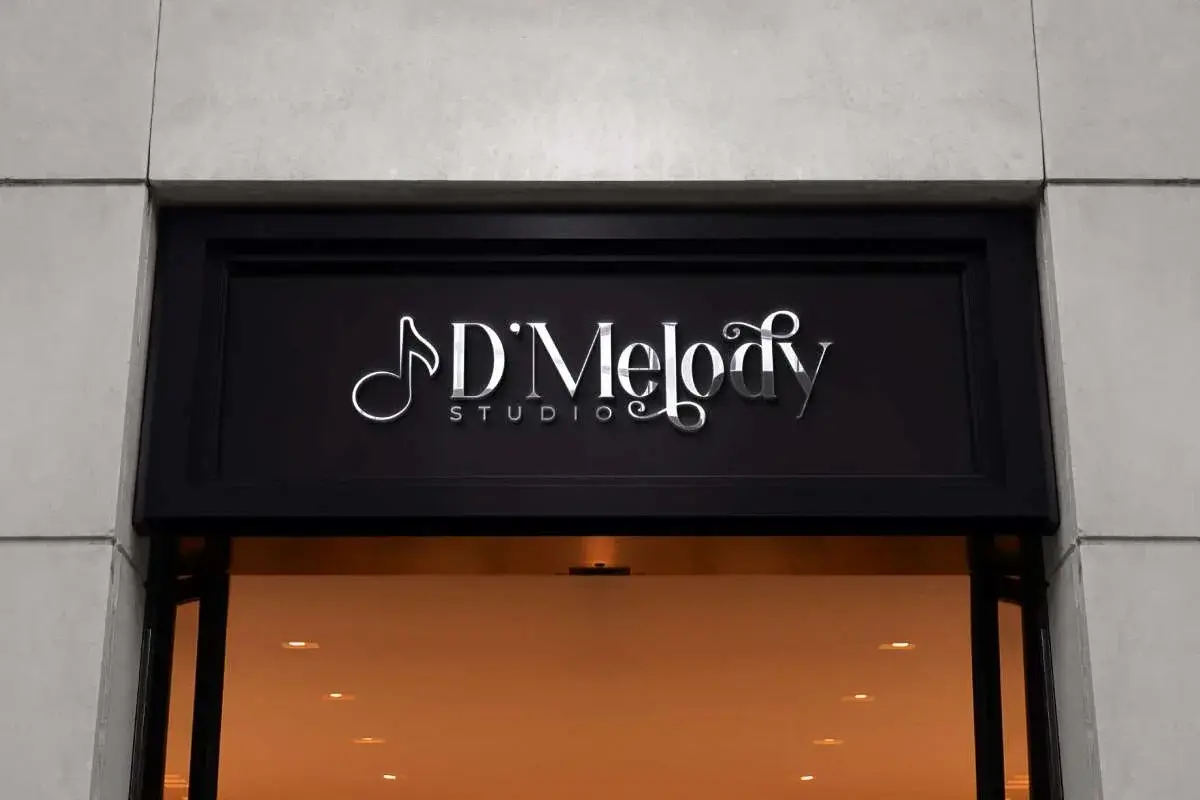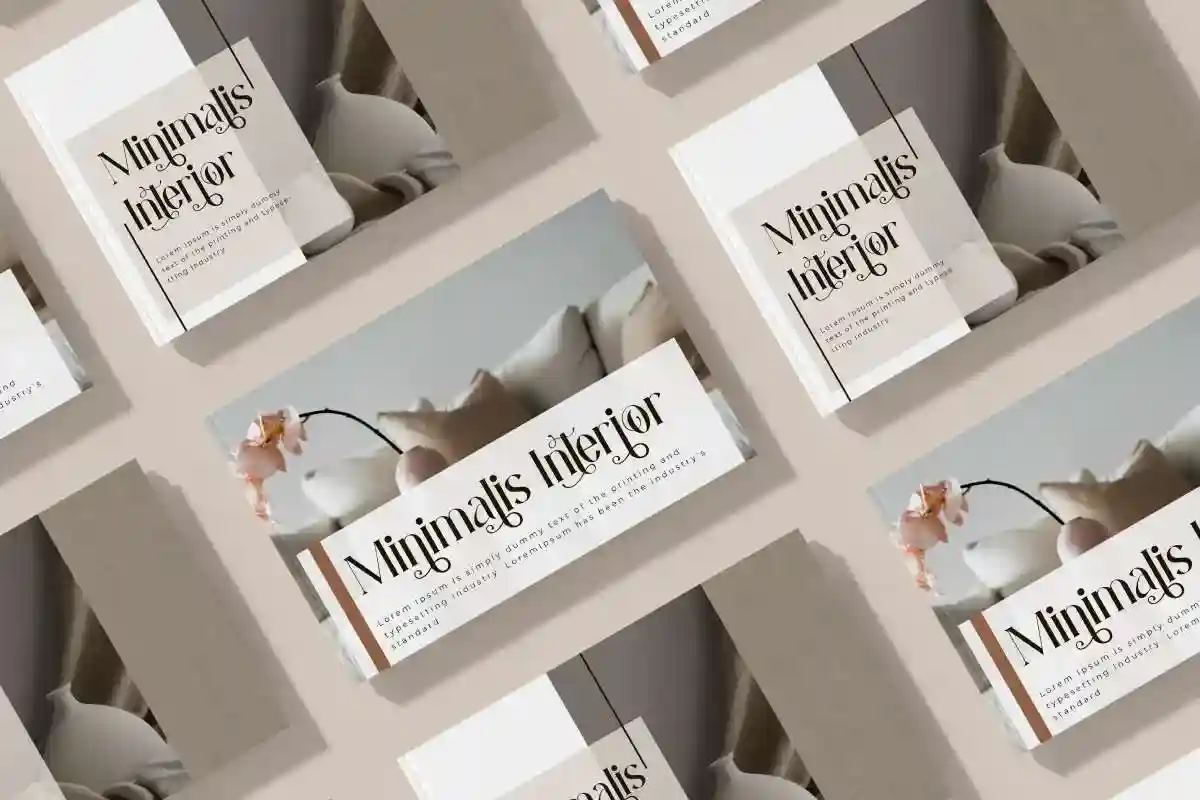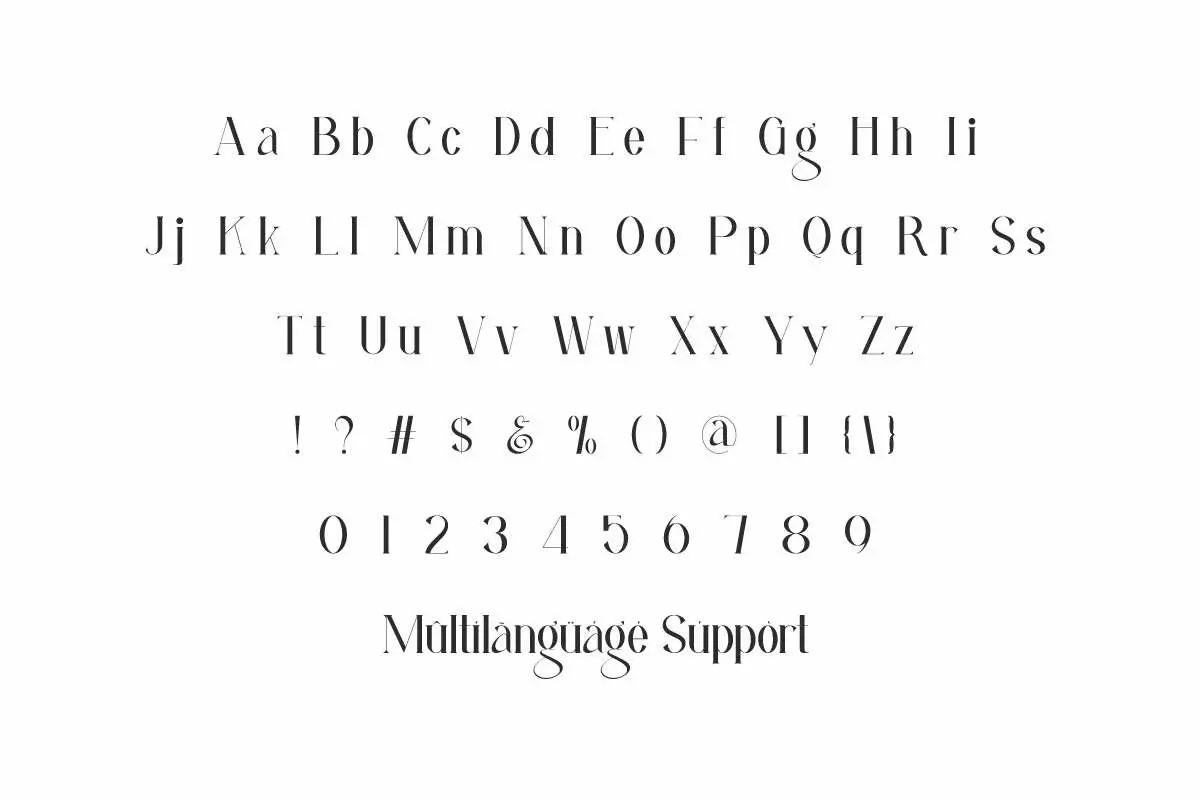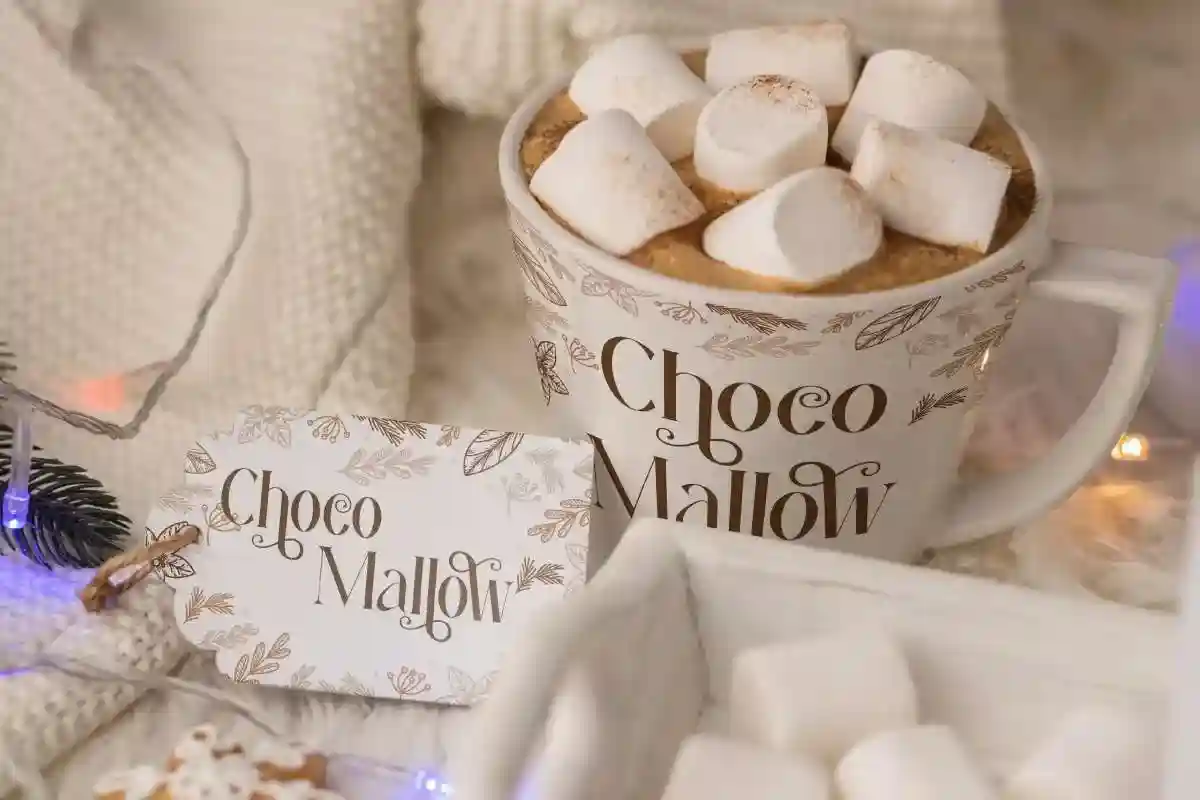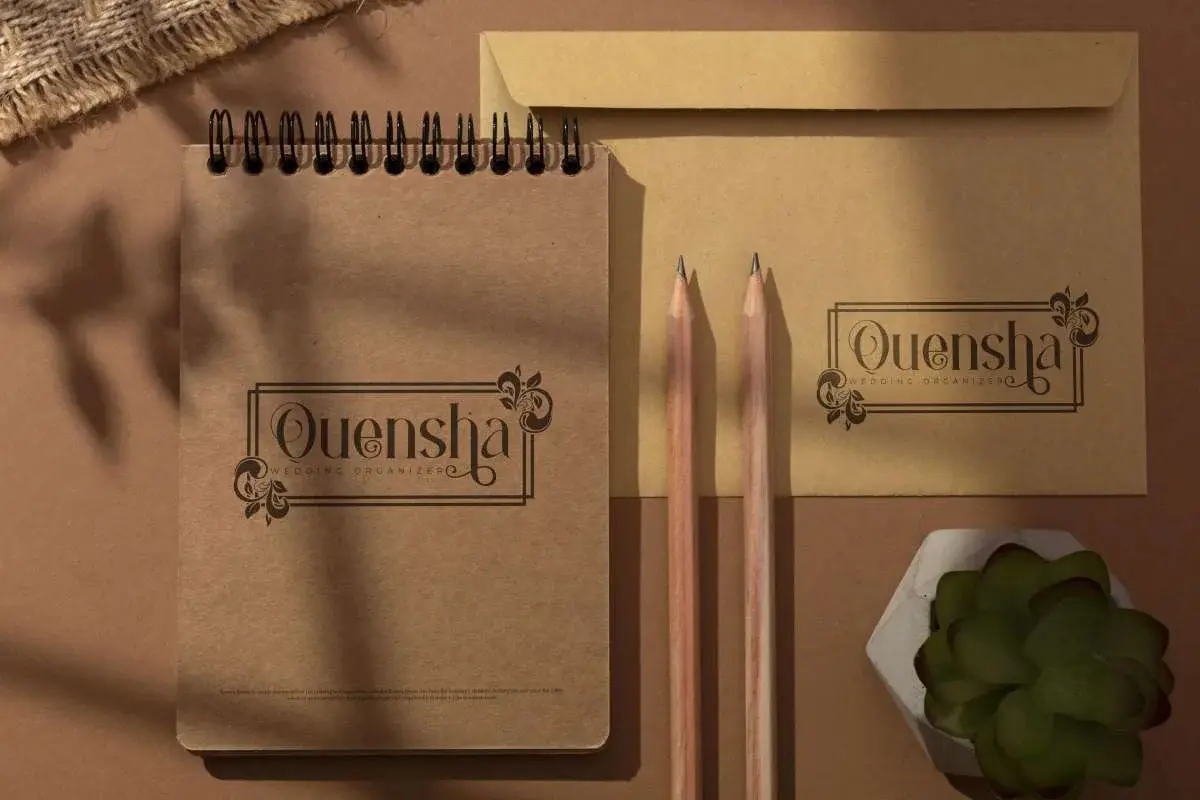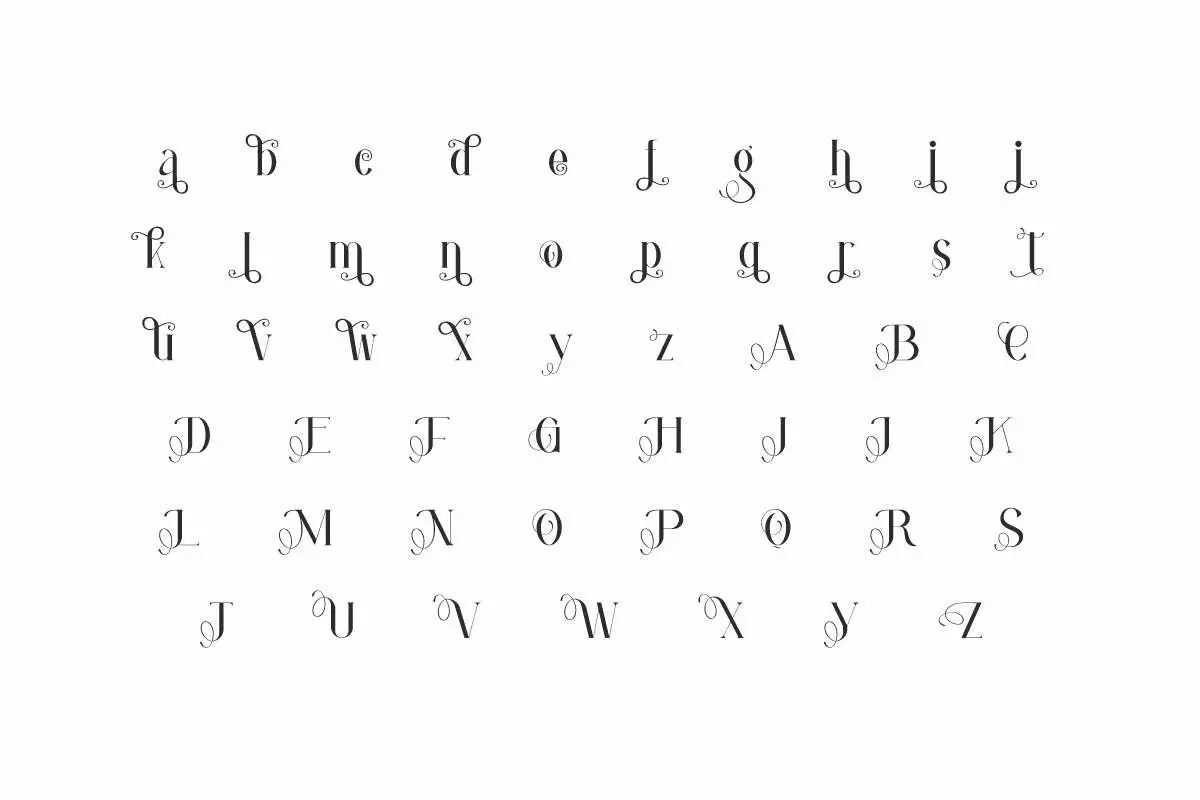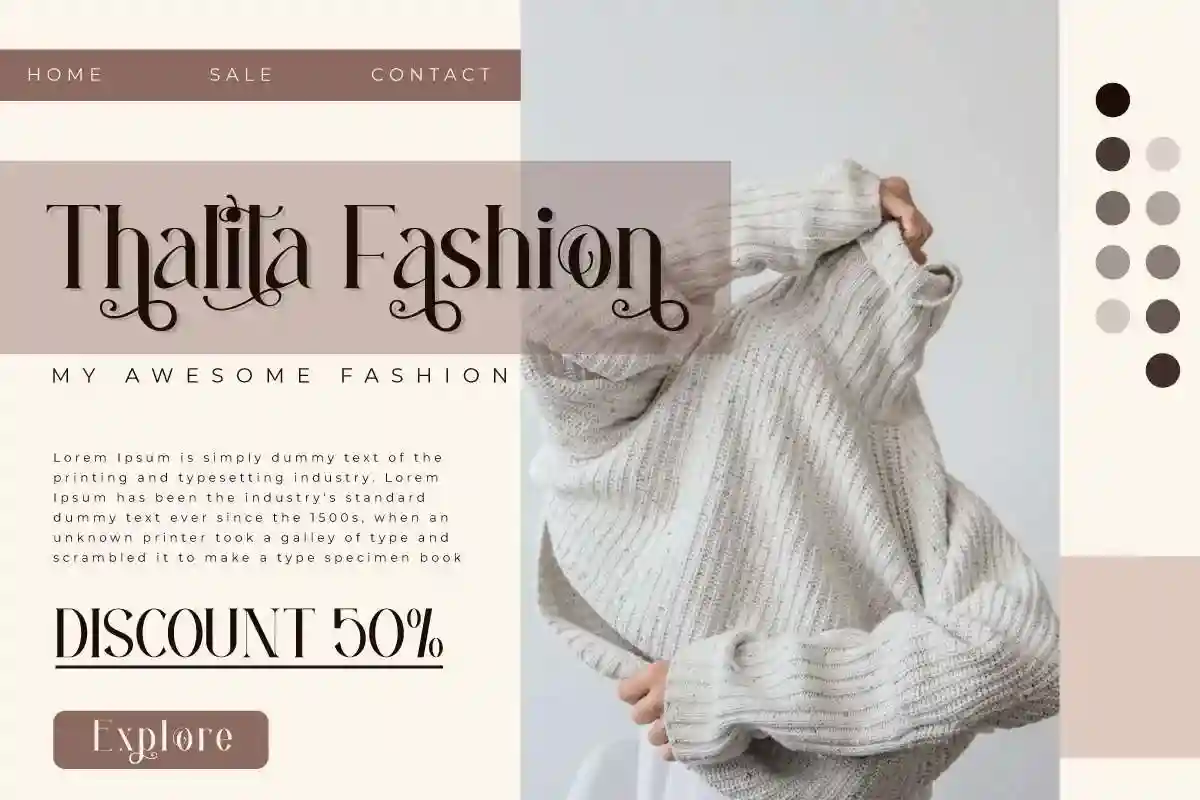
Night Melody Font
Night Melody Font is a luxury serif display typeface by NihStudio. The font will be for fashion label, musician, quotes, architect, café, etc.
Night Melody Font is a stunning display serif font created by NihStudio. It will be suitable for many industry such as, architect, café, fashion, musician, publishing, spa, wedding organizer, etc. This font has curly lines at the ends of the letters make it stand out.
Night Melody Font would be good for blog headers, creating logo, custom design, label, magazine, quotes, signage, stationery, and anything that needs a touch of luxury and easy to read.